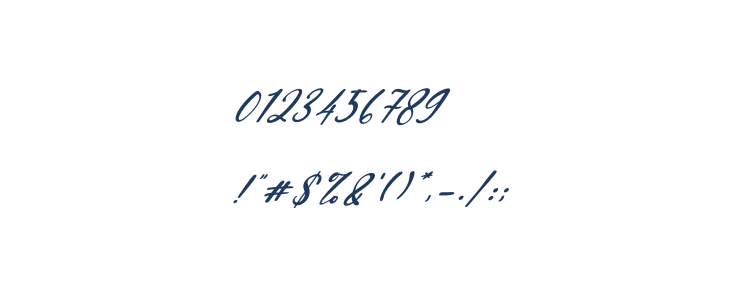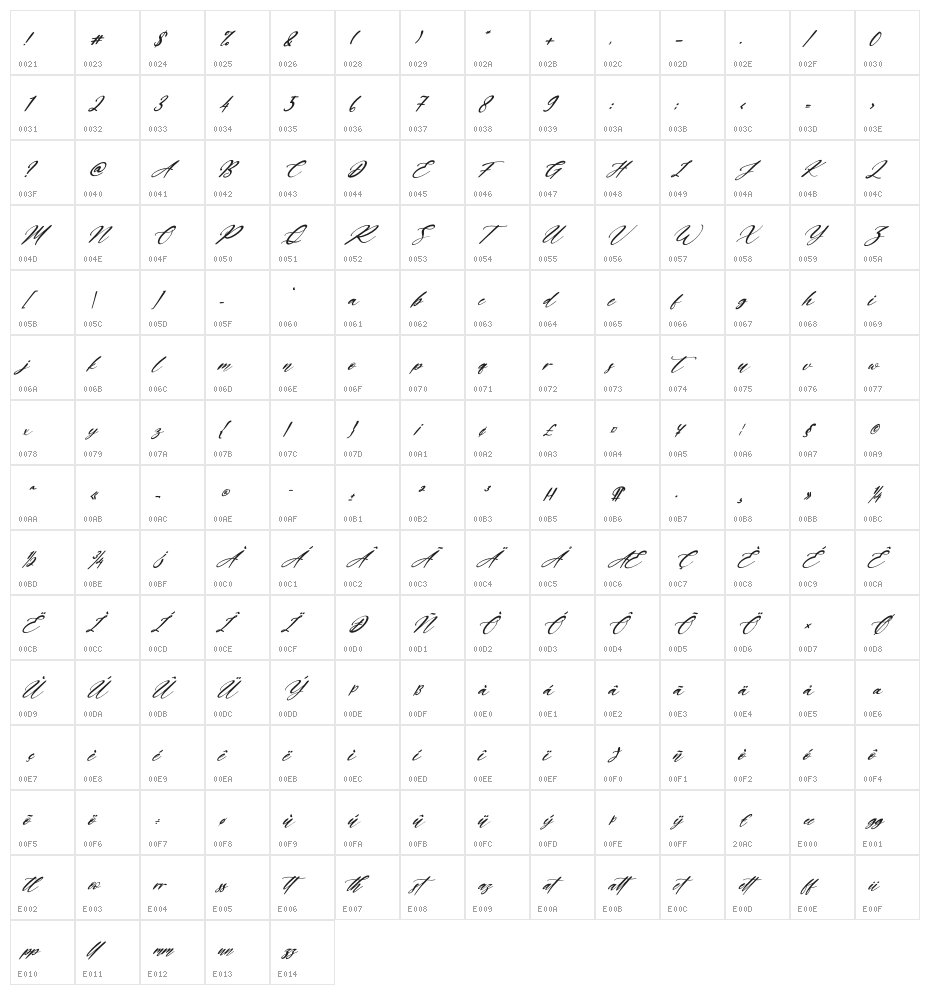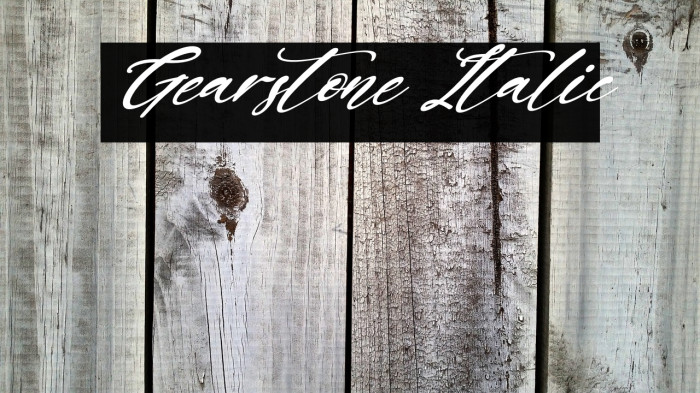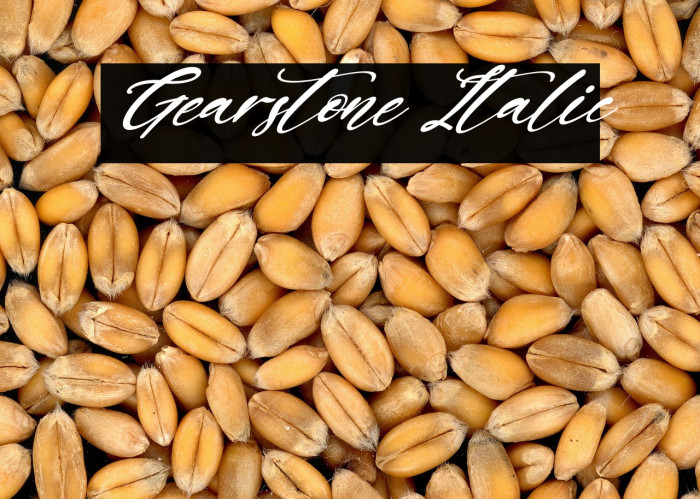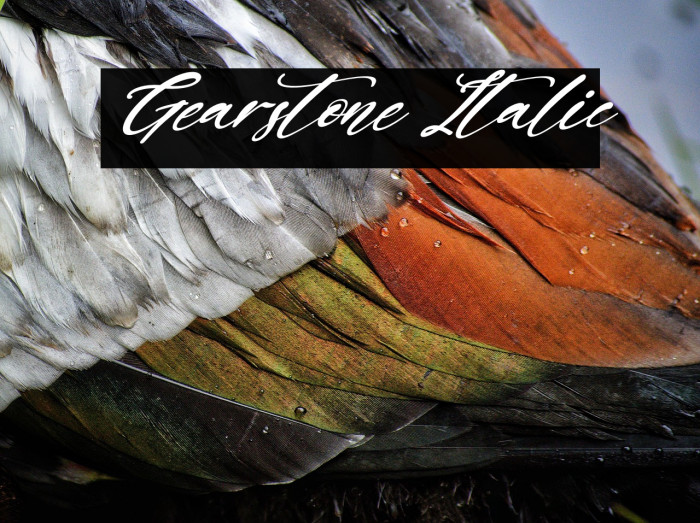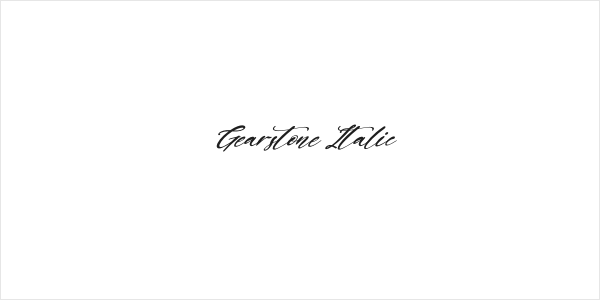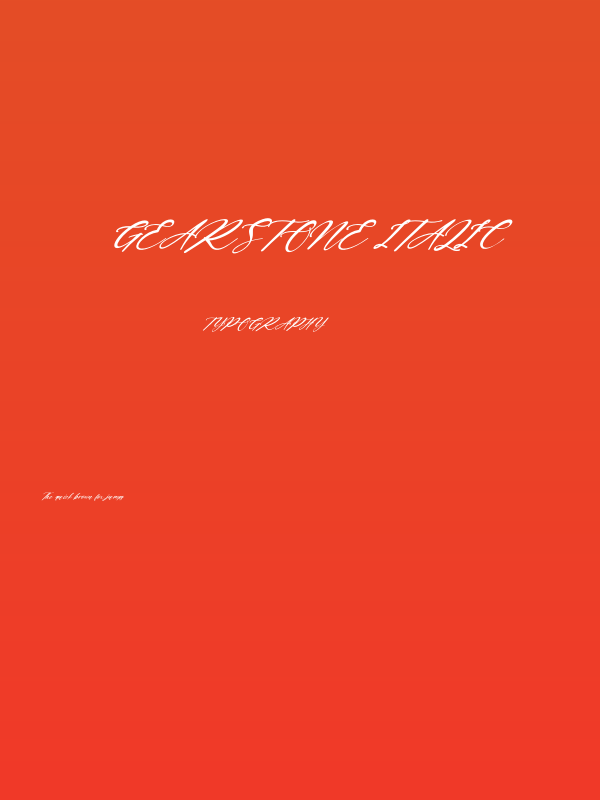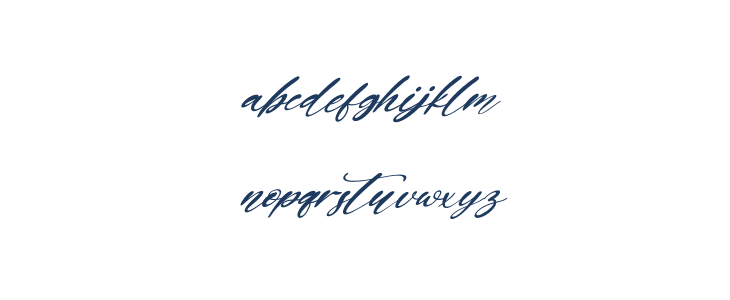
Gearstone Italic Font
Gearstone Italic Description
This elegant script font features a flowing, cursive style with a distinct italic slant, giving it a dynamic and sophisticated appearance. The characters are intricately designed with smooth, connected strokes that mimic the fluidity of handwriting. The uppercase letters are bold and prominent, while the lowercase letters maintain a graceful continuity. The numerals and special characters are crafted to match the overall aesthetic, ensuring consistency across all elements. This font exudes a sense of elegance and refinement, making it ideal for projects that require a touch of class and sophistication.